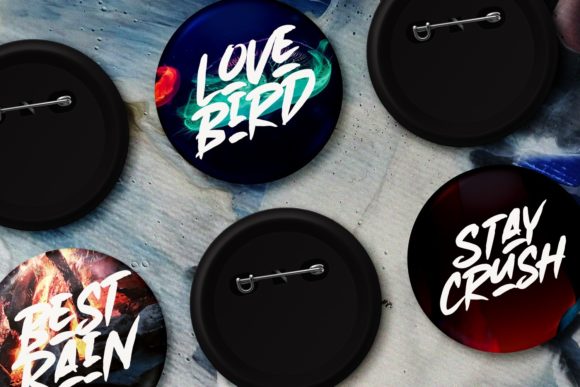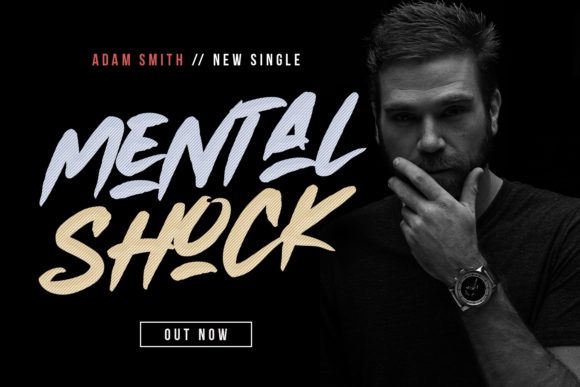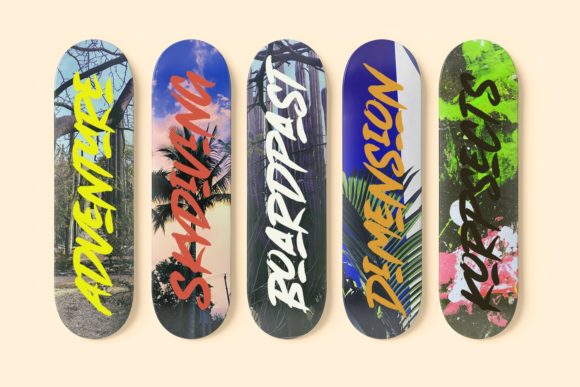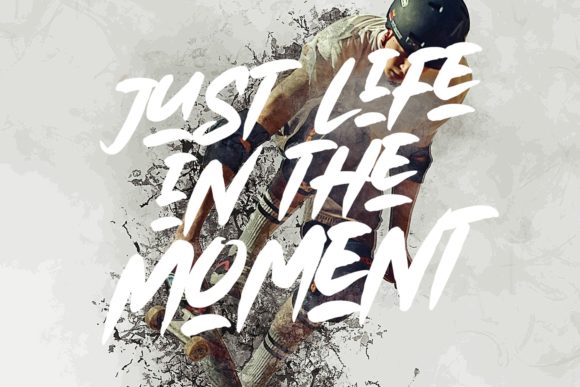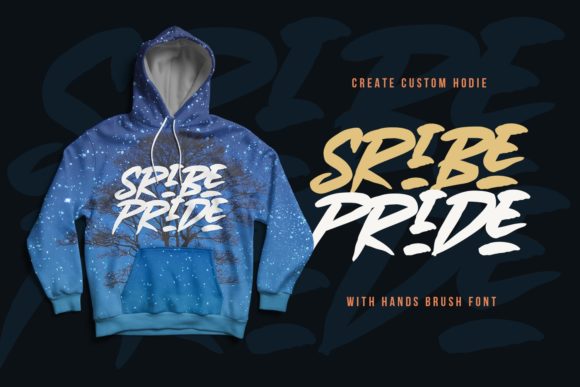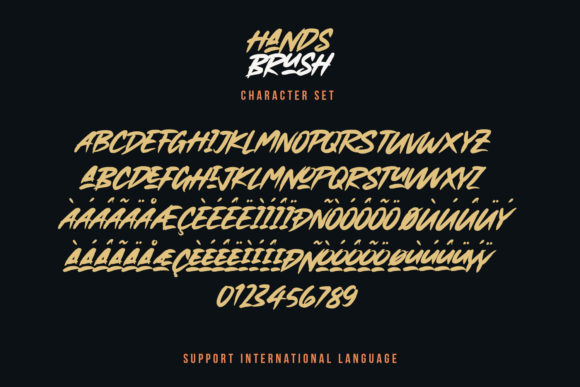
Introducing Hands Brush Font: The Ultimate Urban Brush Font for Modern Designs
Are you tired of using the same old fonts for your designs? Look no further! Hands Brush Font is here to revolutionize your creative projects with its strong, urban, and modern feel. In this article, we’ll dive into the world of Hands Brush Font, exploring its features, benefits, and uses, as well as provide tips and inspiration for designers and crafters.
What is Hands Brush Font?
Hands Brush Font is a unique and stylish brush font that embodies the spirit of urban design. Its bold, expressive strokes and modern aesthetic make it perfect for creating eye-catching designs that demand attention. Whether you’re working on a logo, poster, or social media graphic, Hands Brush Font is sure to elevate your project to the next level.
Key Features of Hands Brush Font
- Strong and Urban: Hands Brush Font boasts a robust and edgy feel, making it ideal for designs that require a bold statement.
- Modern Aesthetic: Its sleek and contemporary style ensures that your designs will look fresh and up-to-date.
- Highly Versatile: Hands Brush Font can be used for a wide range of projects, from logos and branding to posters, flyers, and social media graphics.
- Easily Customizable: With its flexible design, you can adjust the font to fit your specific needs and style.
Benefits of Using Hands Brush Font
So, why choose Hands Brush Font for your designs? Here are just a few benefits:
- Stand Out from the Crowd: With its unique and bold style, Hands Brush Font helps your designs grab attention and leave a lasting impression.
- Time-Saving: The font’s versatility and customizability save you time and effort, allowing you to focus on other creative aspects of your project.
- Professional-Looking Results: Hands Brush Font’s modern and polished aesthetic ensures that your designs look professional and high-quality.
Inspiration and Ideas for Designers and Crafters
Now that you’ve met Hands Brush Font, it’s time to get creative! Here are some ideas to get you started:
- Logos and Branding: Use Hands Brush Font to create a bold and memorable logo that represents your brand’s personality.
- Posters and Flyers: Add a touch of urban flair to your posters and flyers with Hands Brush Font’s modern and edgy style.
- Social Media Graphics: Elevate your social media presence with eye-catching graphics featuring Hands Brush Font.
- Hand Lettering and Calligraphy: Experiment with Hands Brush Font’s flexible design to create unique hand-lettered pieces and calligraphy artworks.
Tips for Using Hands Brush Font
To get the most out of Hands Brush Font, keep the following tips in mind:
- Experiment with Colors: Hands Brush Font looks great in bold, bright colors, but don’t be afraid to try out different hues and combinations.
- Play with Texture and Patterns: Add depth and interest to your designs by incorporating textures and patterns that complement Hands Brush Font.
- Mix and Match Fonts: Combine Hands Brush Font with other fonts to create visually appealing and dynamic designs.
Hands Brush Font is a game-changer for designers and crafters looking to add a touch of urban flair to their creations. With its strong, modern, and versatile design, this font is sure to inspire and elevate your projects. So why wait? Get creative with Hands Brush Font today and experience the power of bold, eye-catching typography!